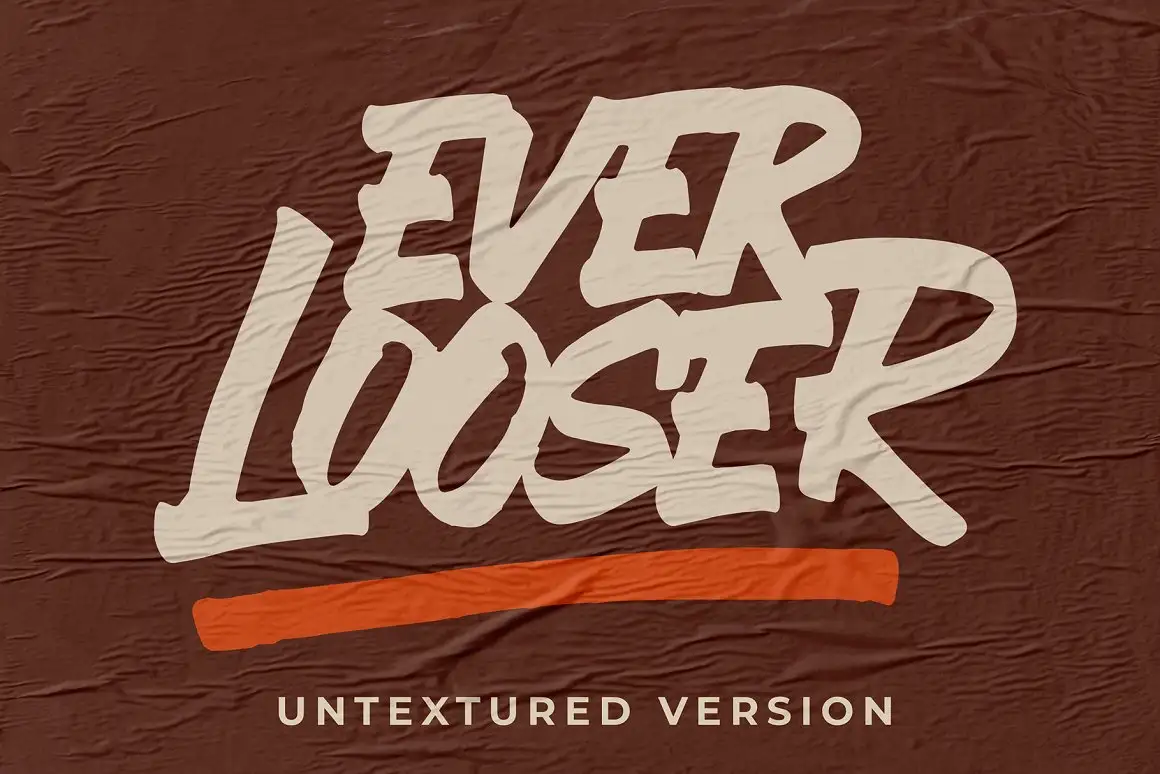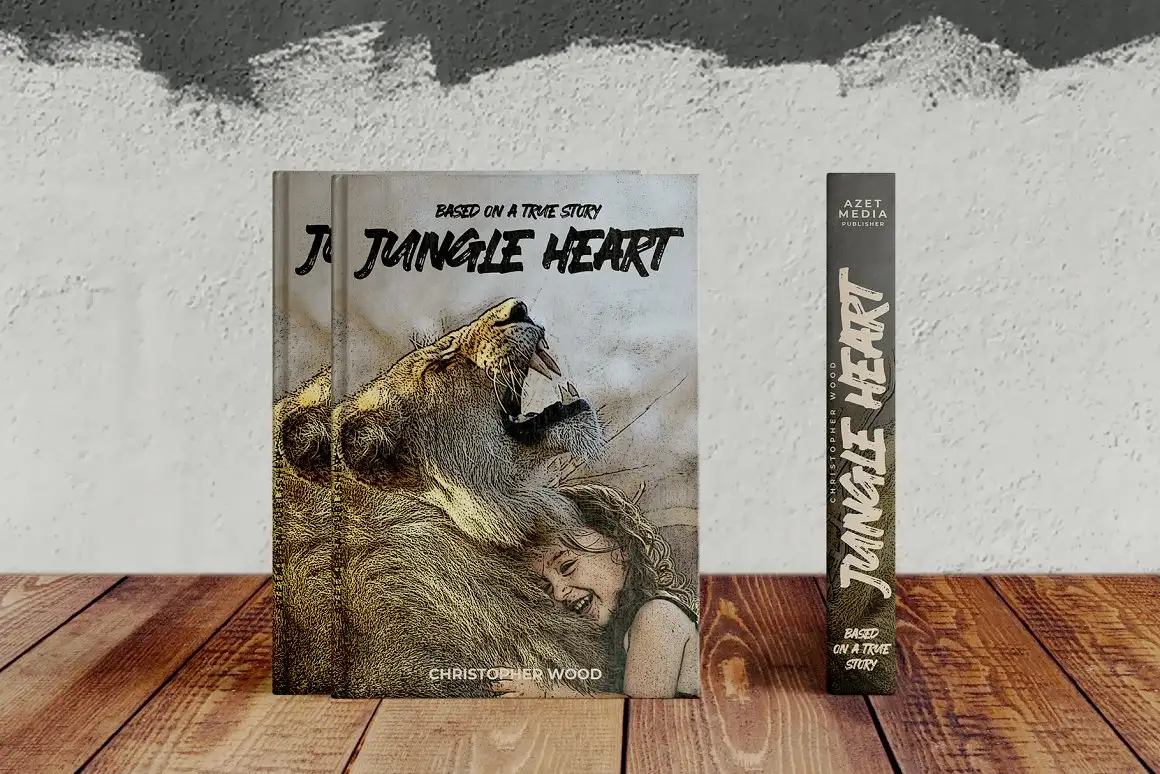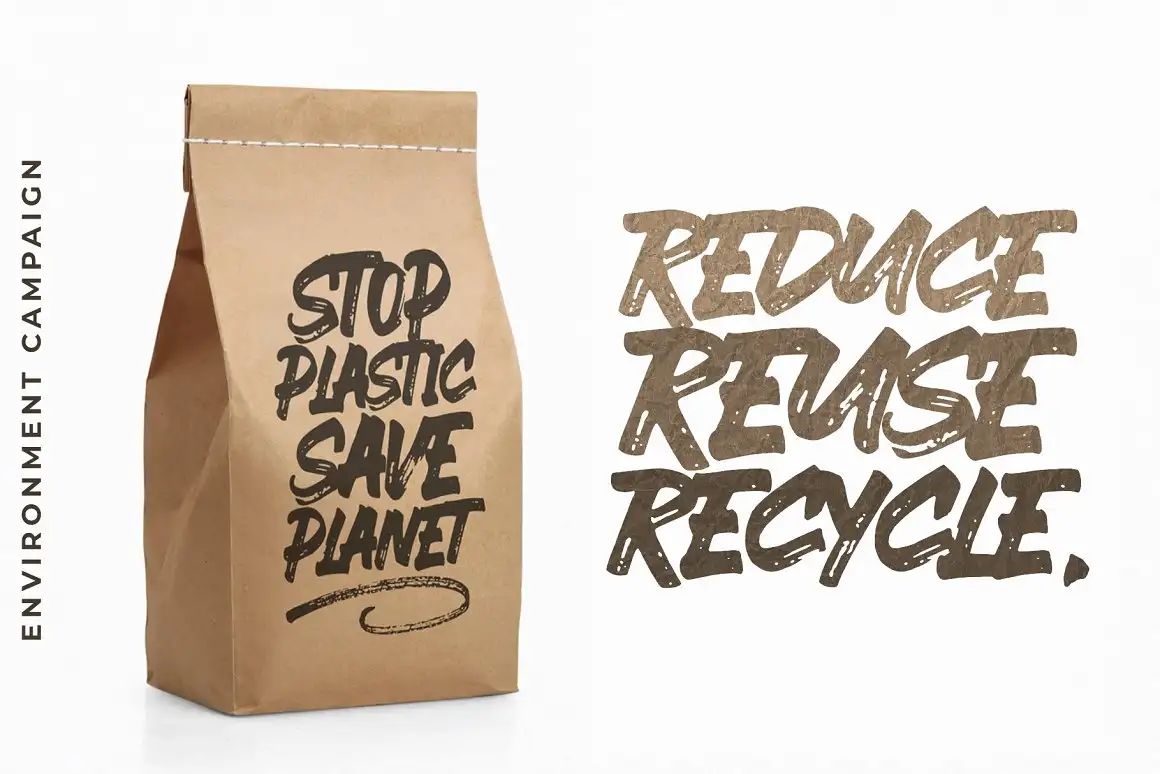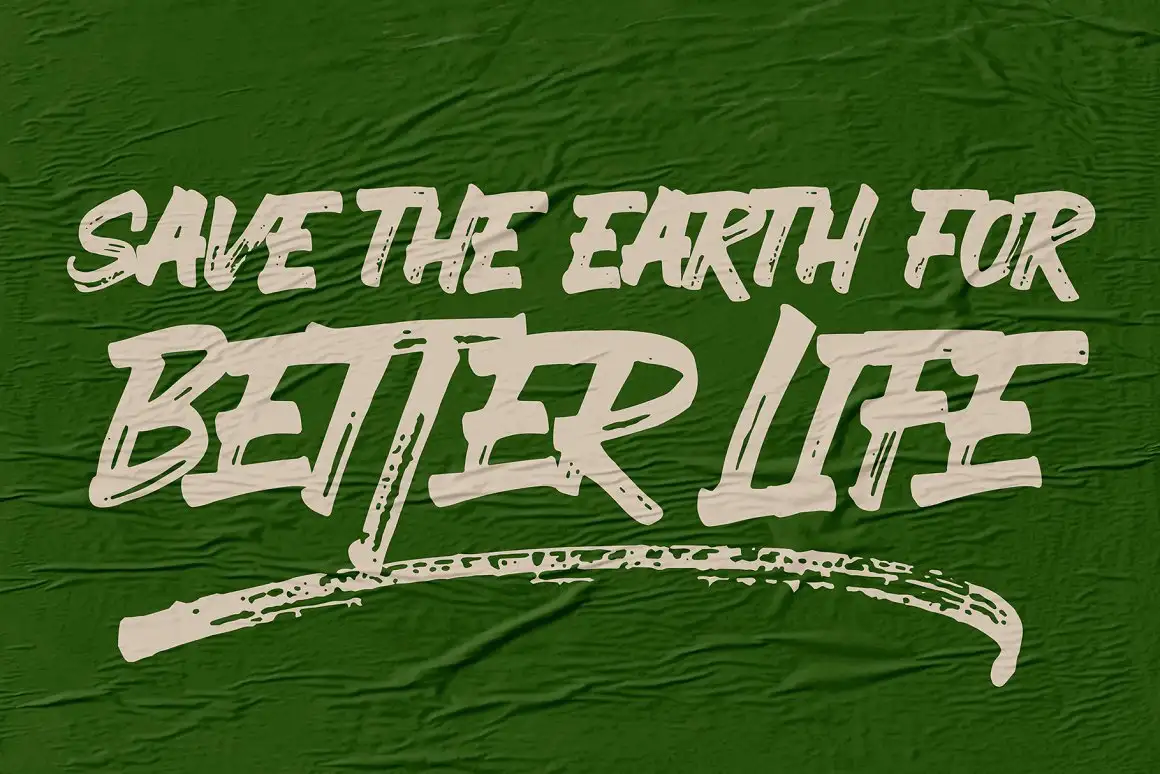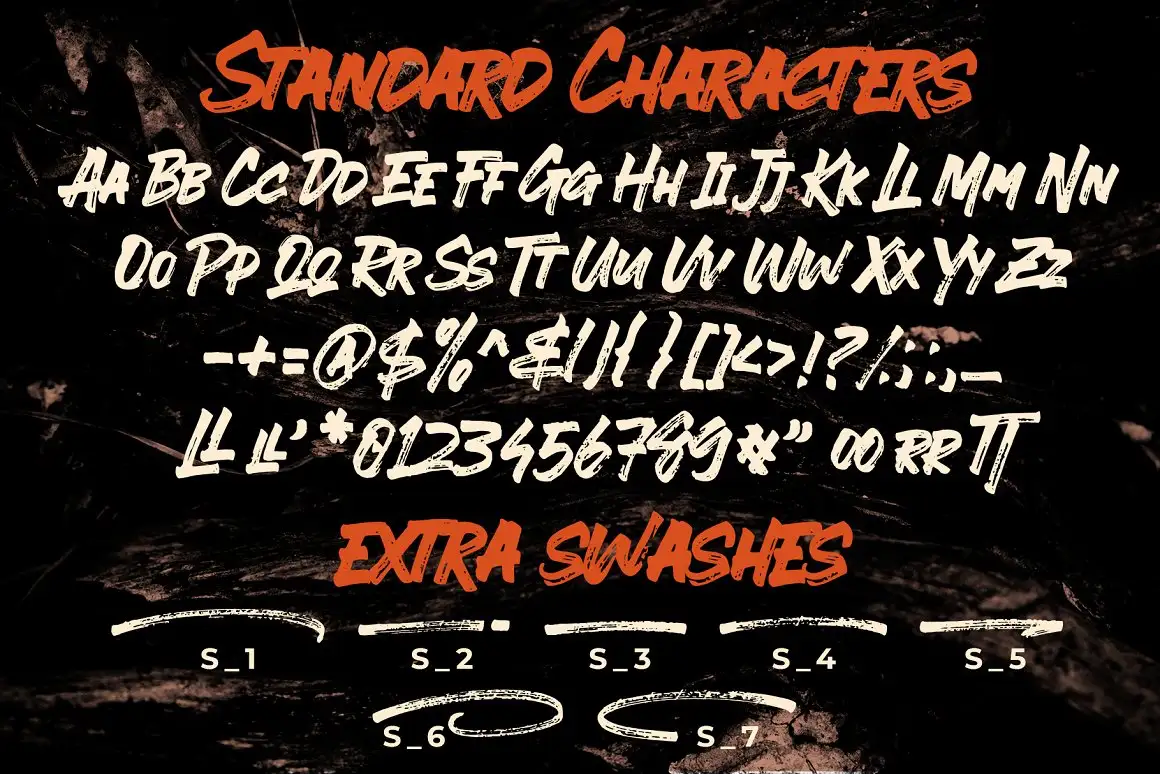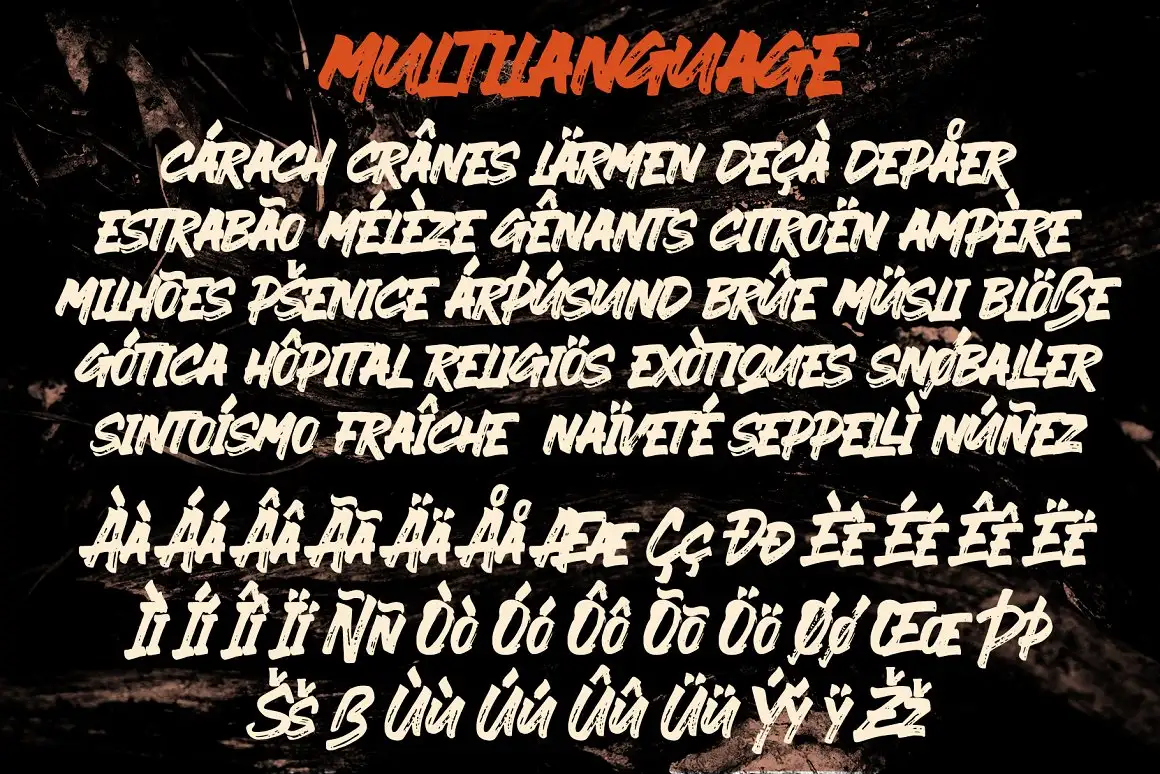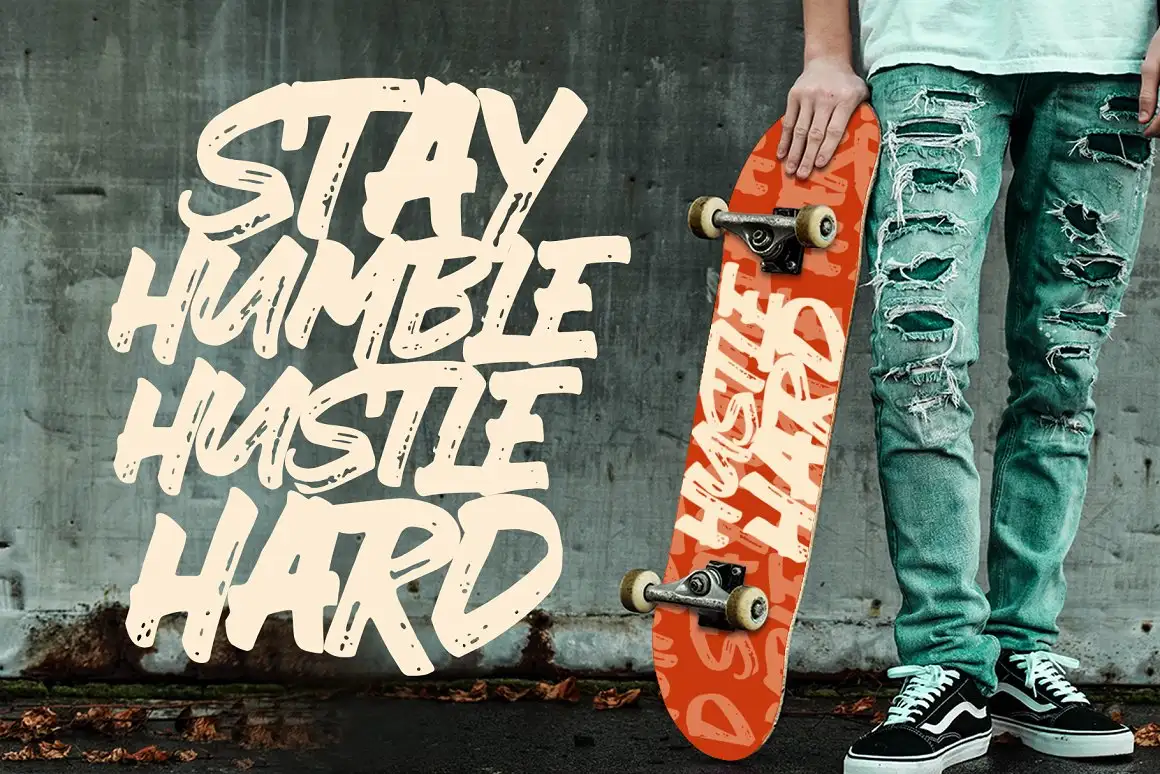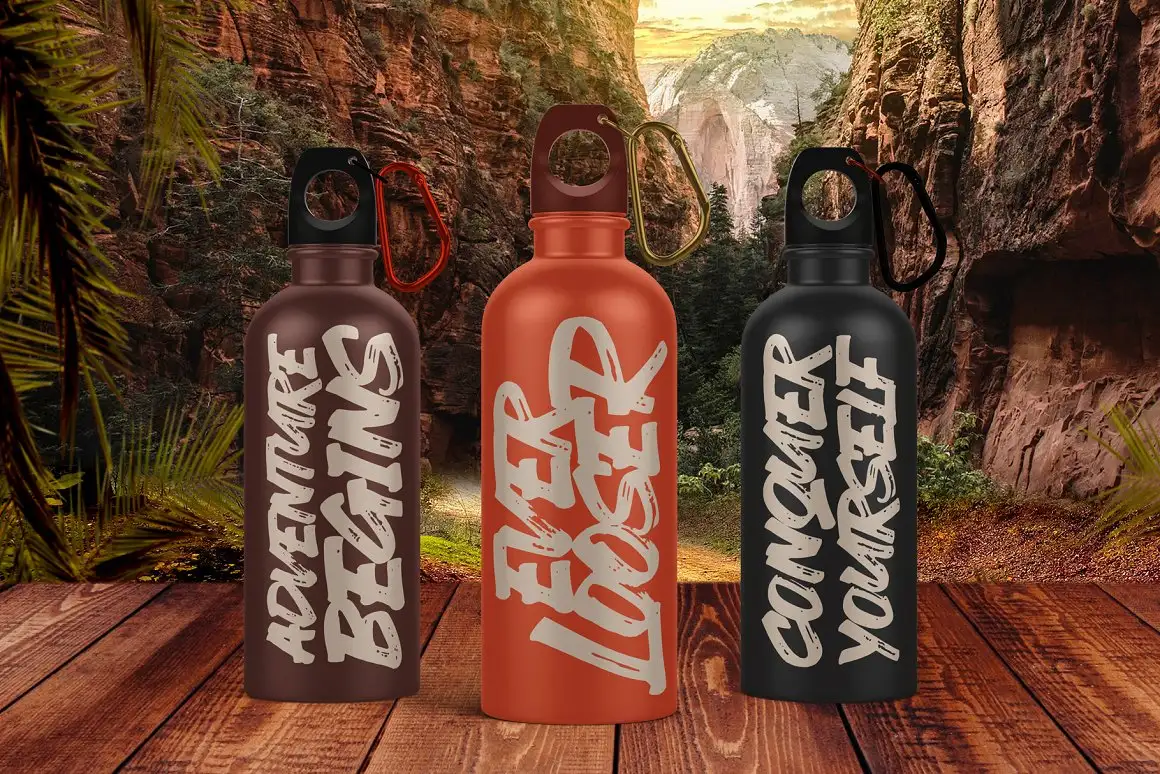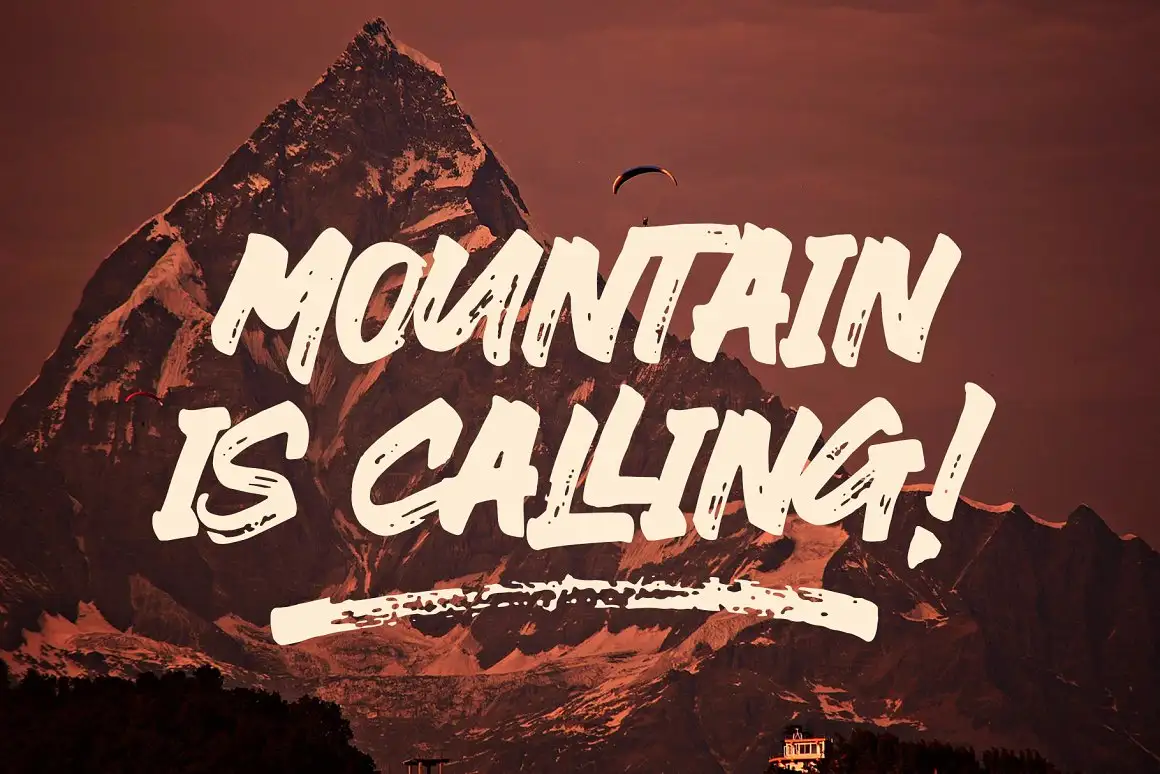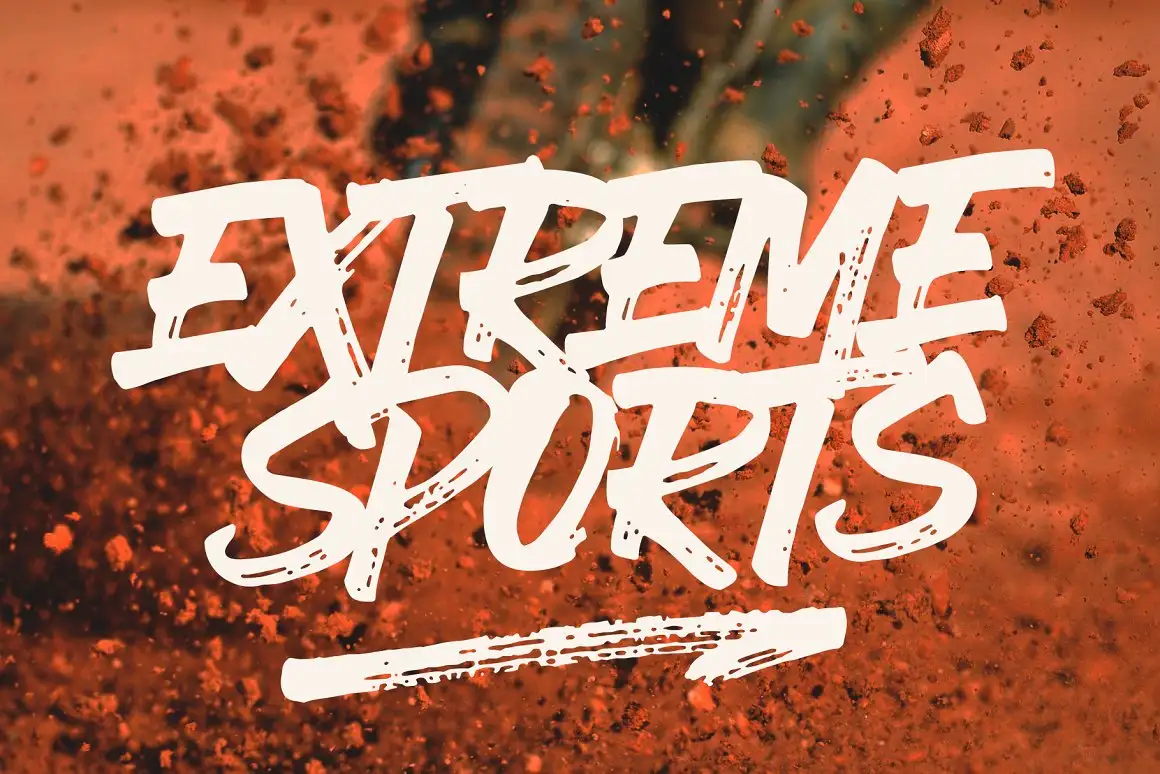
Welcome to the World of Ever Looser – Wild Brush Font!
Looking for a font that brings a sense of adventure and creativity to your projects? Meet Ever Looser, a Wild Brush Font that’s all about that distinctive texture and playful vibe! 🌟 This digital download gives you instant access to a font that’s perfect for making your designs pop with personality.
Ever Looser is not just any font; it’s a celebration of wildness and uniqueness! 🎉 Each character is carefully crafted to allow for an engaging mix and match experience, resulting in a truly original text. Whether you’re designing an eye-catching poster or a trendy t-shirt, this font shines in every application!
- Unique Character Design: Each glyph brings its own flair, creating visually dynamic text that stands out in any project.
- Mix & Match Capability: Combine characters effortlessly to create custom words and phrases that reflect your style.
- Versatile Use: Perfect for environmental campaigns, book covers, promotional materials, and much more!
- Special Ligatures: Surprise elements like TT, LL, ll, oo, and rr enhance your typography with unexpected charm.
- Are there any special characters? Yes! This font includes unique ligatures for added creativity.